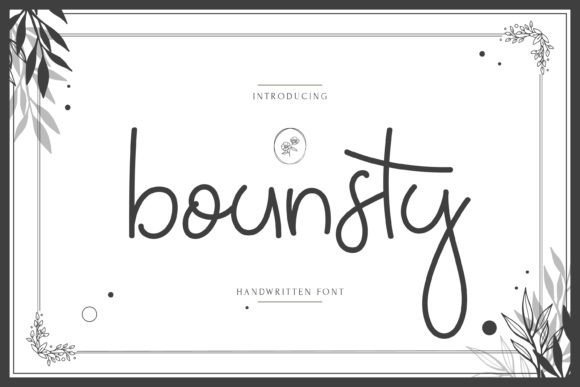
The Perfect Script Font for Your Next Creative Project
You know that moment when you’re working on a design project, and you just can’t seem to find the right font to bring it all together? The words, the images, the colors – everything is in place, but something’s missing. That’s where the magic of typography comes in. A well-chosen font can elevate your design from good to great, and that’s exactly what the Bounsty Font can do.
Bounsty Font is a sweet and dainty handwritten script font that’s perfect for adding a touch of whimsy and personality to your creations. Whether you’re working on a blog post, a social media campaign, or a wedding invitation, this font has the potential to take your design to the next level. Its versatility and charm make it a valuable asset for designers, and it’s sure to become a favorite in your font library.
Bounsty Font Key Features
- Unique Characteristics: Bounsty Font features a unique blend of modern and vintage elements, with a distinctive curved and rounded design aesthetic.
- Style Variations: Bounsty Font offers multiple style variations, including Regular, Italic, Bold, and Bold Italic, to provide users with flexibility and versatility.
Bounsty Font Review
I’ve had the chance to work with the Bounsty font, and I must say it’s a unique addition to any design project. ✨ The font’s quirky and playful nature can add a lot of personality to your designs, making it perfect for creative and artistic projects.
One of the things I appreciate about the Bounsty font is its versatility. ✨ It comes in a variety of weights and styles, allowing you to customize it to fit your specific needs. The font also has a wide range of language support, making it a great option for projects that require multilingual text.
However, there are a few limitations to consider. ⚠️ The font can be quite busy and overwhelming if used in large quantities, which may not be ideal for projects that require a clean and minimal aesthetic. Additionally, the font may not be the best choice for projects that require a lot of technical or formal text, as its playful nature may not be taken seriously.
- Unique and playful design
- Wide range of weights and styles
- Language support for multiple languages
- Customizable and versatile
Overall, I think the Bounsty font is a great option for designers looking to add some personality and flair to their projects. While it may not be suitable for every project, it’s definitely worth considering for creative and artistic endeavors.
Getting the Most Out of Bounsty Font
Here are some tips for getting the most out of the Bounsty font:
- Use the font in combination with bold or italic styles to add emphasis.
- Experiment with different font sizes to create visual hierarchy.
- Pair the font with other creative fonts to add visual interest.
The Bounsty font is commonly used for:
- Headlines and titles.
- Branding and logos.
- Infographics and data visualizations.
Alternatives to Bounsty Font for Designers
Great Vibes is a beautiful, elegant script font perfect for creating a sense of sophistication and luxury. It’s ideal for use in wedding invitations, branding, and high-end packaging.
Compared to Bounsty Font, Great Vibes has a more refined and delicate feel, making it suitable for applications where a touch of elegance is required. While Bounsty Font has a more playful and whimsical tone, Great Vibes exudes a sense of refinement and sophistication.
Amarante
Amarante is a stunning script font that combines elegance and playfulness. It’s perfect for use in branding, advertising, and editorial design where a touch of sophistication is required.
Compared to Bounsty Font, Amarante has a more dynamic and expressive feel, making it suitable for applications where a sense of energy and movement is required. While Bounsty Font has a more laid-back and casual tone, Amarante exudes a sense of excitement and adventure.